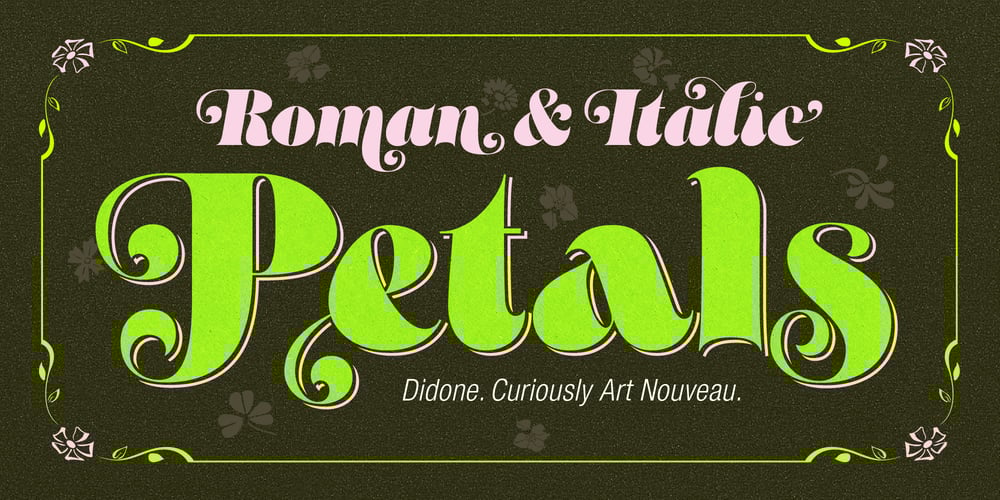
Petals BF Font Family was designed by John Bomparte and published by Bomparte’s Fonts. Petals BF contains 2 styles and family package options. Petals BF is inspired by the work of Dave West. It’s been infused with an abundance of pleasingly plump letterforms. I’ve also designed and created matching italics. Included are swashes reminiscent of 60s and 70s style lettering, but with a twist: among these swash variants where you typically might expect ball terminals, you’ll find sensuous curls and playful letterforms such as in h, k, m, and n. These may even call to mind that groovy look of ’60s bell-bottoms. Spread across capital and lowercases are swash variants for beginning, middle and ending letterforms.Petals BF is where Didone style harmoniously meets with the organic and curvaceous forms of Art Nouveau. Strange I know, but so is a duckbill platypus —and somehow they all seem to work surprisingly well. Among the many typographic niceties you’ll discover, are such Opentype features as Contextual and Stylistic alternates, Ligatures, Case-sensitive forms and Fractions. Please note: these magical features demand the use of Opentype-savvy applications, along with a discerning and judicious eye to ensure that, within certain word sets, swashes do not collide with each other. This may require selectively turning on/off Contextual alternates on individual letters.Petals BF is multilingual, and speaks the languages of Western, Eastern and Central Europe, in addition to Turkish and Baltic. It gets around. So let your creativity blossom with Petals BF in projects that involve headlines, magazine layouts, product packaging, logos, signage, branding and more.